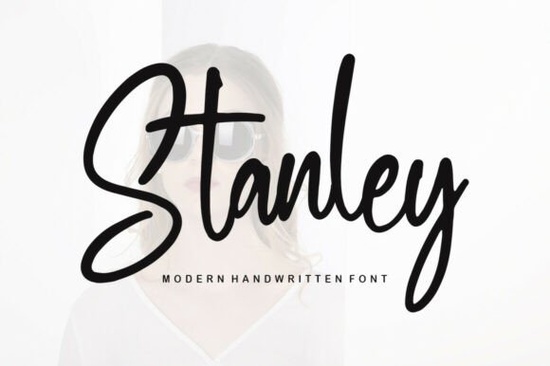
If you've been searching for a script font that looks genuinely hand-lettered without feeling stiff or overdone, the Stanley Font is worth a close look. It's a handmade script typeface with flowing, natural letterforms that work well across logos, wedding invitations, merchandise, and social media graphics. Because it's PUA encoded, every glyph, swash, and alternate character is accessible in any program no special software required.
What Makes the Stanley Font Different From Other Script Fonts?
There are thousands of script fonts out there, so what sets this one apart? The main thing is the balance between casual warmth and polished structure. Some handwritten fonts look too rough for professional use. Others are so refined they lose the organic feel that makes scripts appealing in the first place. Stanley sits comfortably in the middle.
The letter connections flow smoothly, and the swashes add personality without overwhelming a layout. If you're designing a logo or a product label, that balance matters. You want the font to feel approachable but intentional.
How Do the Glyphs and Swashes Work?
- Alternate uppercase letters with decorative flourishes
- Stylistic swashes that can be added to the beginning or end of words
- Ligatures that smooth out tricky letter pairs for a more natural look
- Lowercase alternates for subtle variation across repeated characters
What Projects Does This Font Work Best For?
The style of the Stanley Font lends itself to a wide range of creative projects. Here are some of the most common uses among designers and sellers:
- Wedding invitations and stationery The elegant, flowing script feels romantic without being overly formal. If you're building a collection of wedding designs, pairing it with something like a popular bridal script gives you variety for different parts of a suite.
- Logo design For boutique brands, salons, bakeries, and lifestyle businesses, this font creates a refined yet personal mark.
- Print-on-demand products Mugs, tote bags, t-shirts, and wall art all benefit from script fonts that are legible at different sizes.
- Social media graphics Quotes, sale announcements, and story templates look more polished with a hand-lettered feel.
- Greeting cards Whether it's a birthday card or a thank-you note, a well-chosen script adds warmth. For more graceful lettering options, you might also explore elegant handwriting styles that complement this one.
Does It Pair Well With Other Fonts?
Pairing script fonts with the right secondary typeface can make or break a design. Stanley works well alongside clean sans-serifs and minimal serif fonts. The contrast between the flowing script and structured supporting text creates visual hierarchy without clutter.
If you need a companion script for variety, a bolder script option can add energy to certain parts of a layout. For something more grounded and classic, a hand-lettered companion keeps the organic feel while offering a different personality.